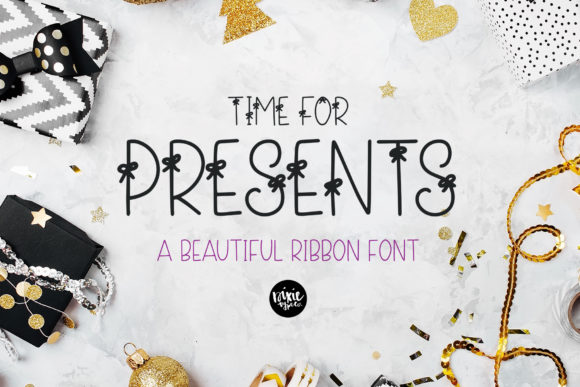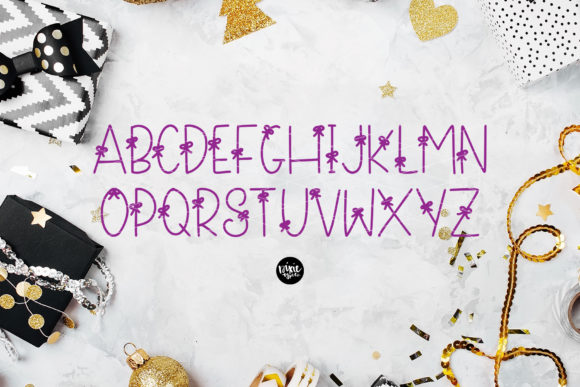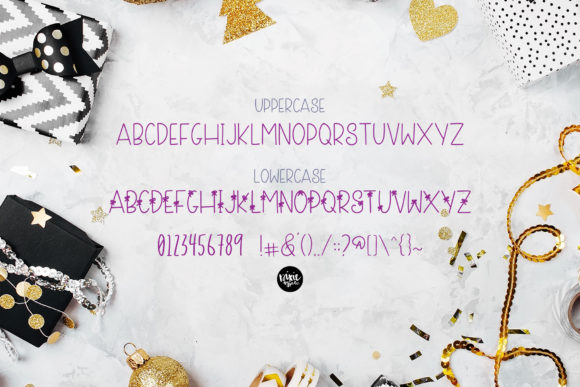
Time for Presents
About Time for Presents Font
Time for Presents is a unique decorative font with a gilf bow-tie theme. Use it to bring your projects to the highest level!